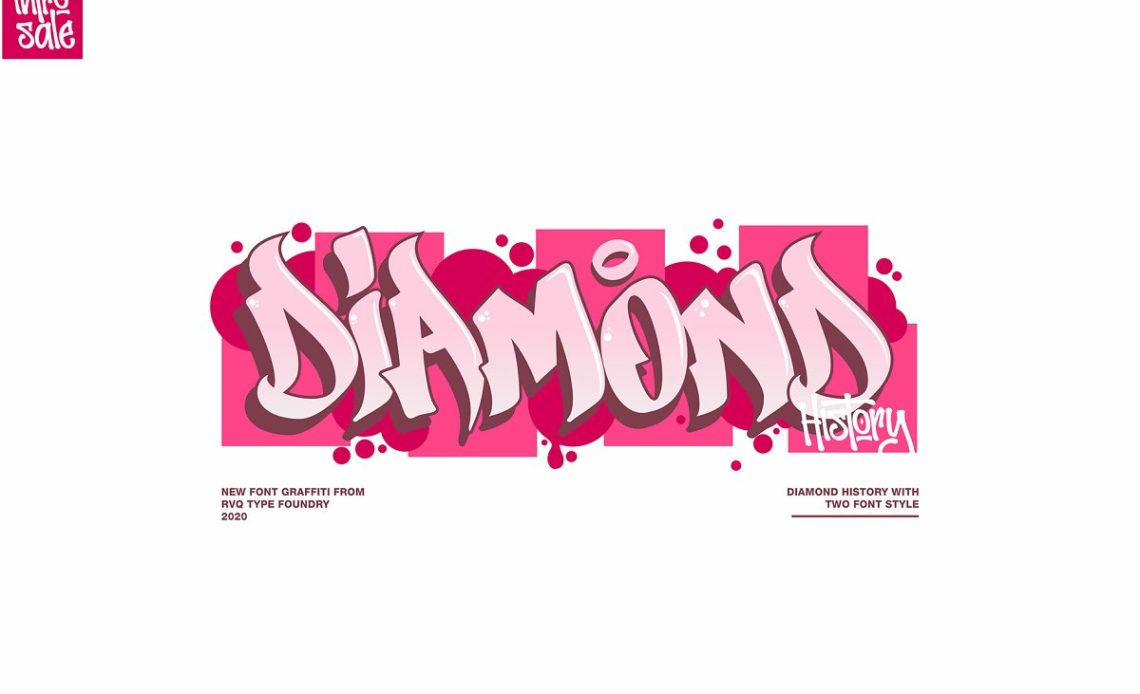
Diamond History
The Diamond History is new font duo graffiti style from Rvq Typefoundry, elegant feel character set. nice fot logo type ,To create the beautiful combination, just mix the uppercase and lowercase. The Diamond History insfire from graffiti style.
– Swash and ornament
Diamond History is suitable font for many creative products & designs.